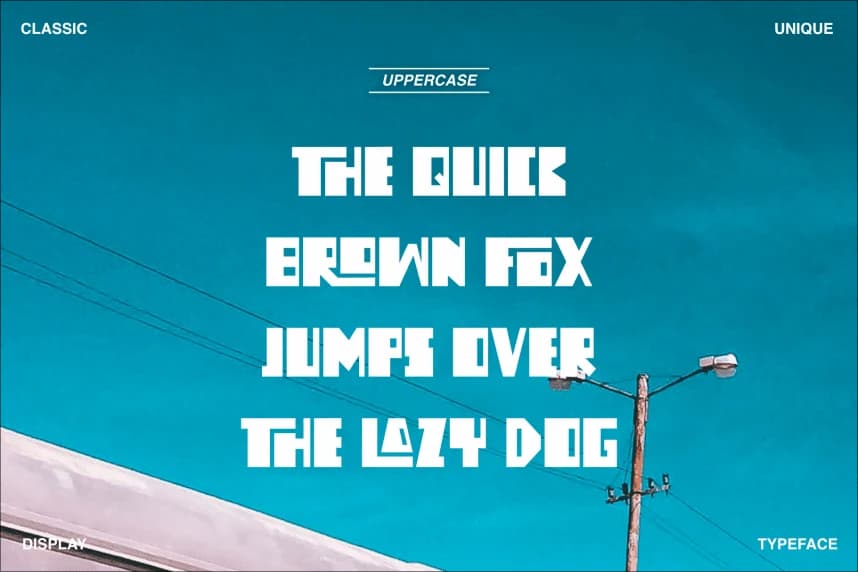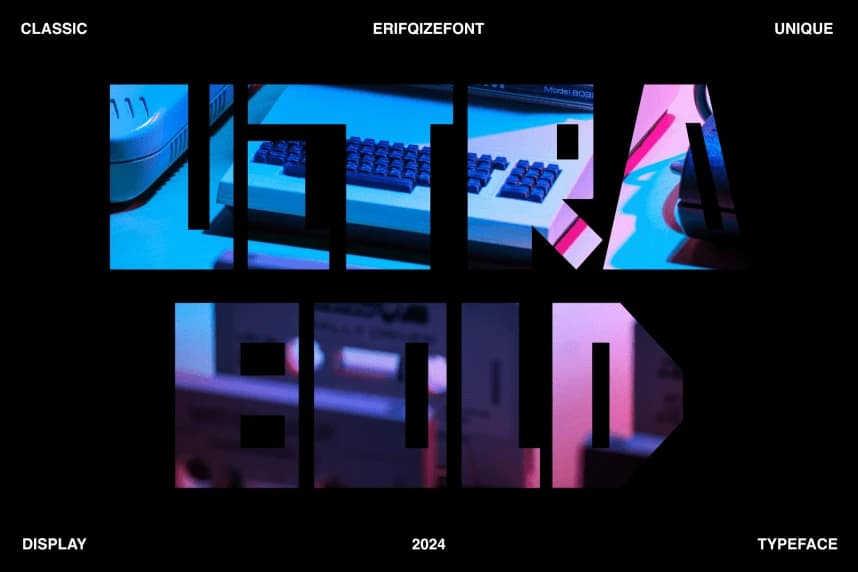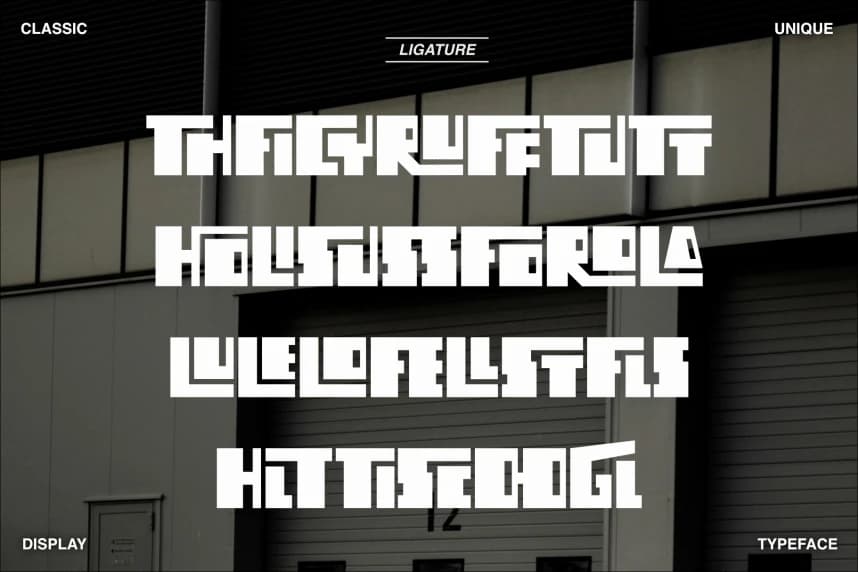
Propolish Rufftu Display Font
Propolish Rufftu Display Font is a captivating display font that radiates rugged charm and bold personality. With its strong lines and distinctive letterforms, this font instantly grabs attention and adds a powerful edge to your designs.